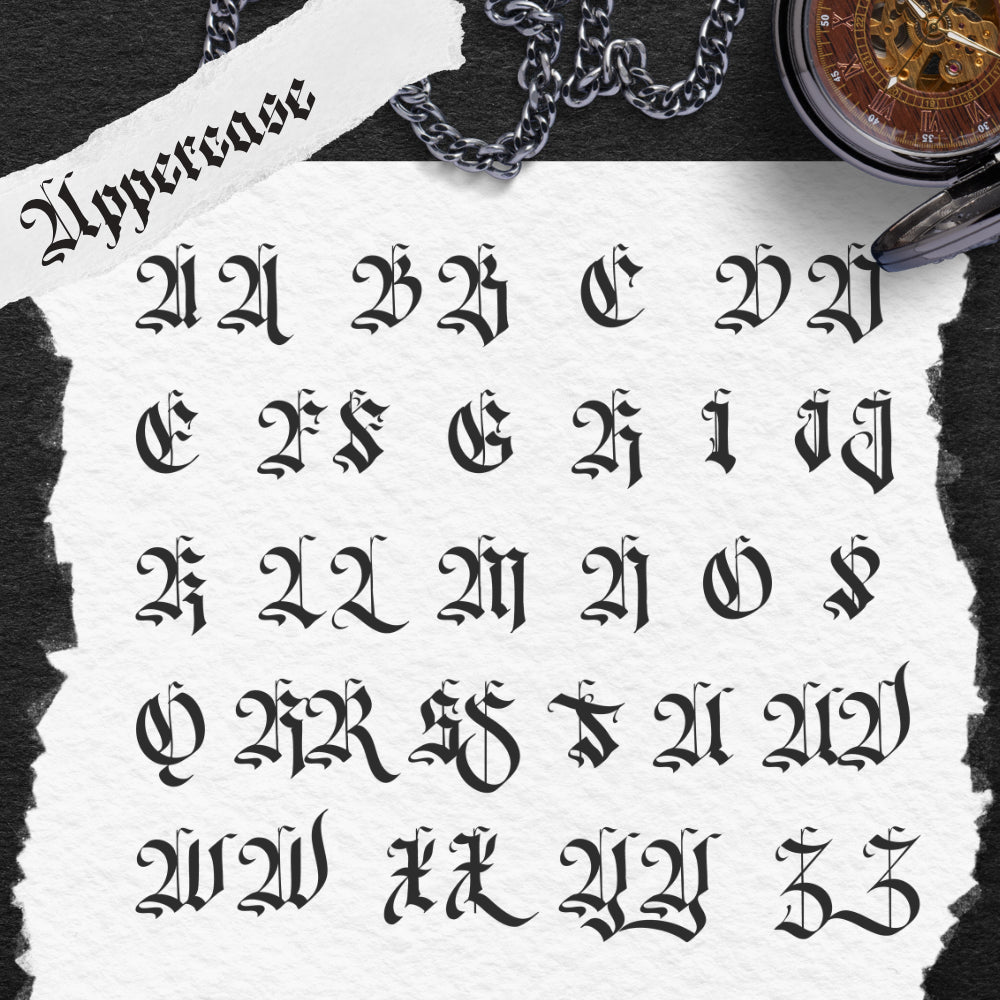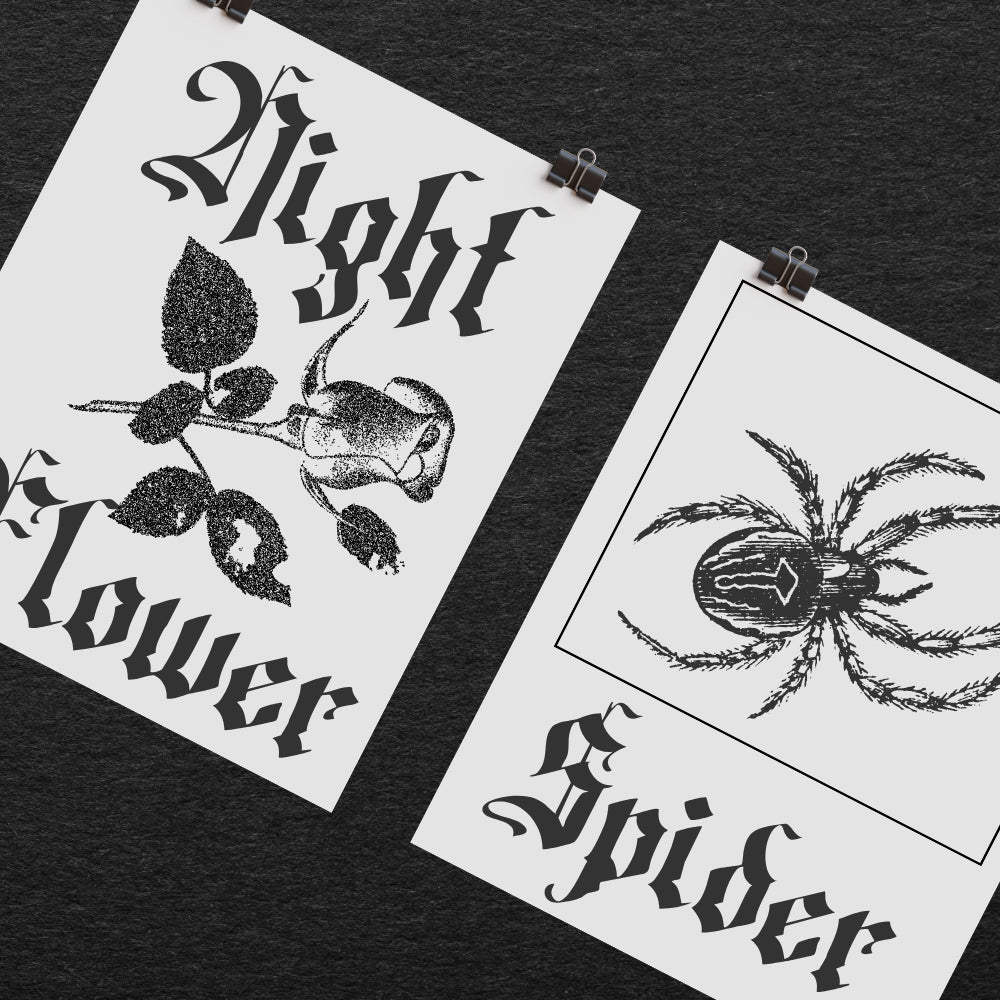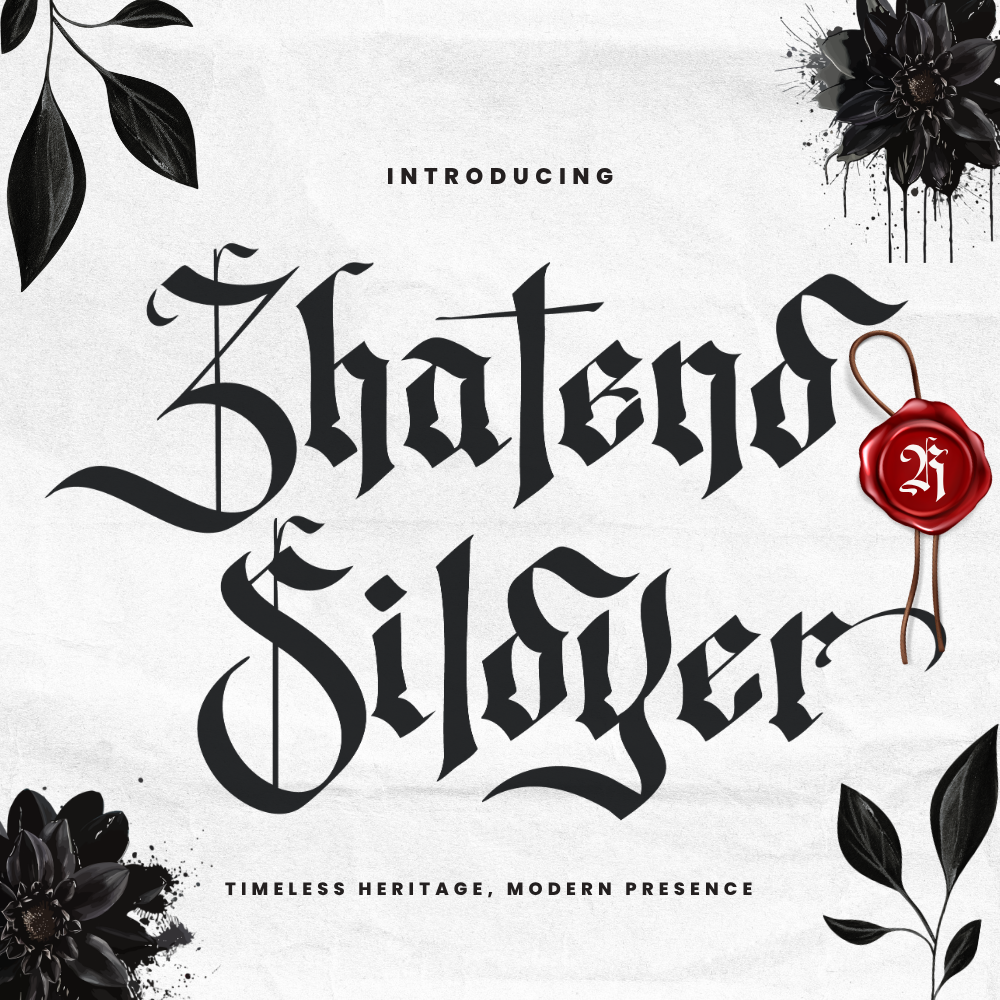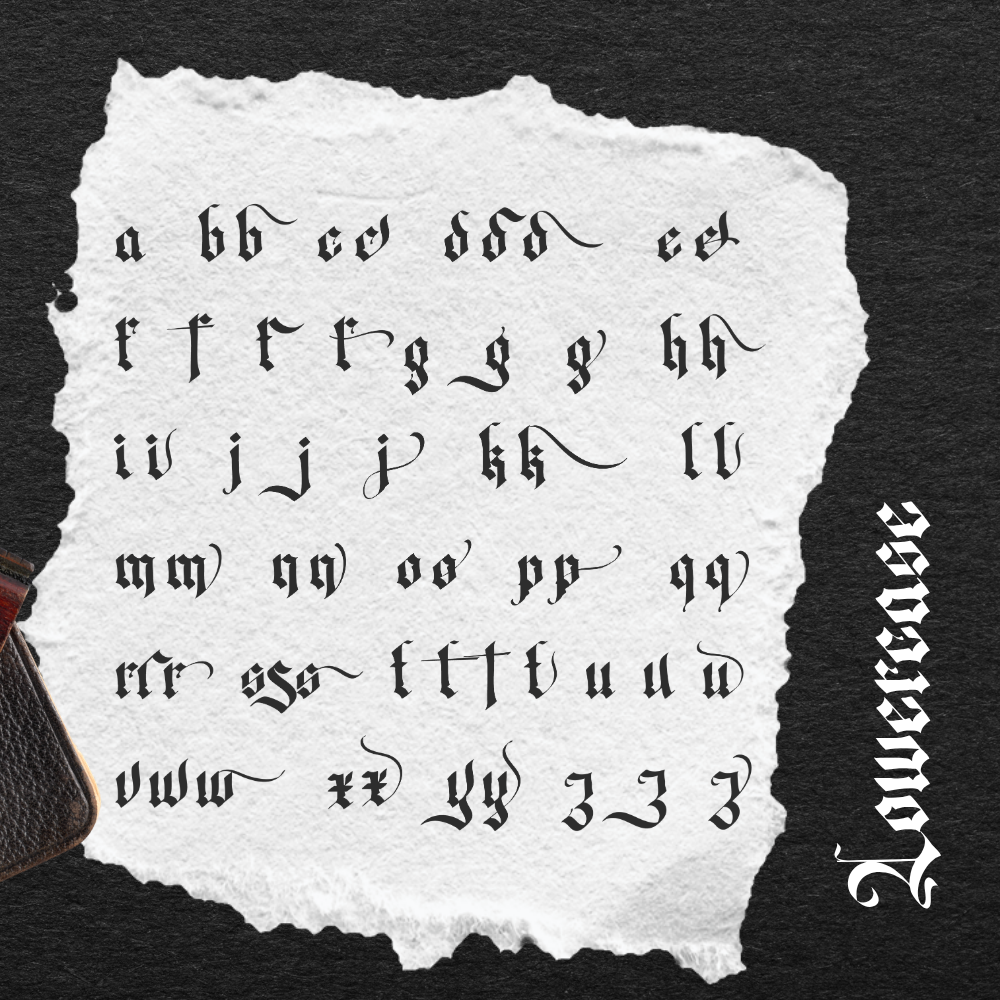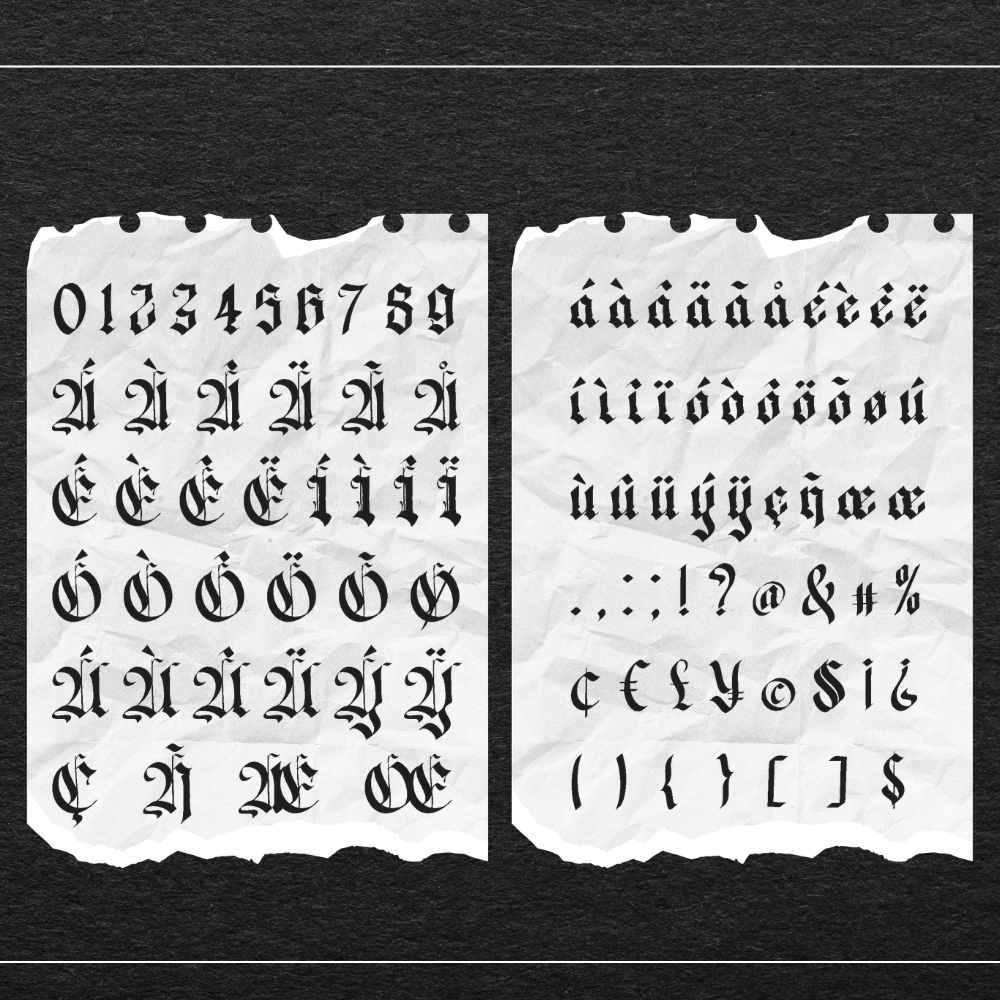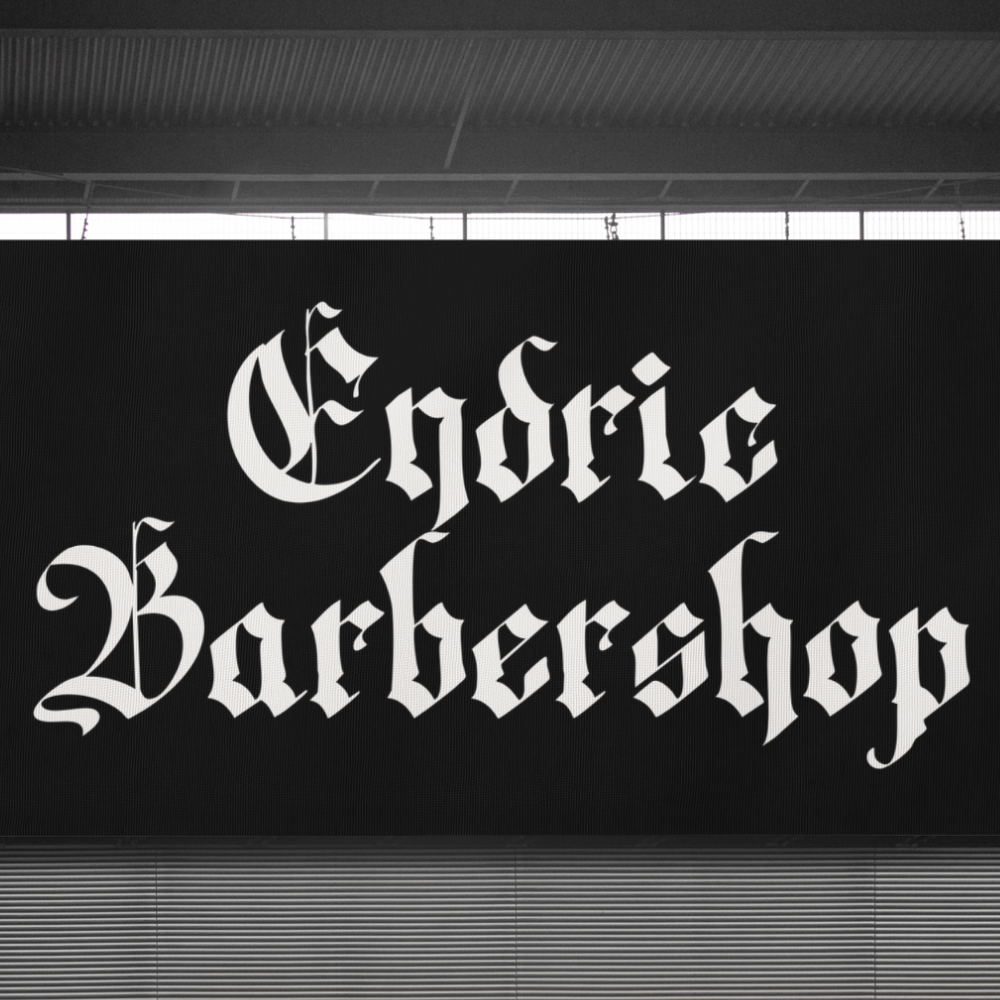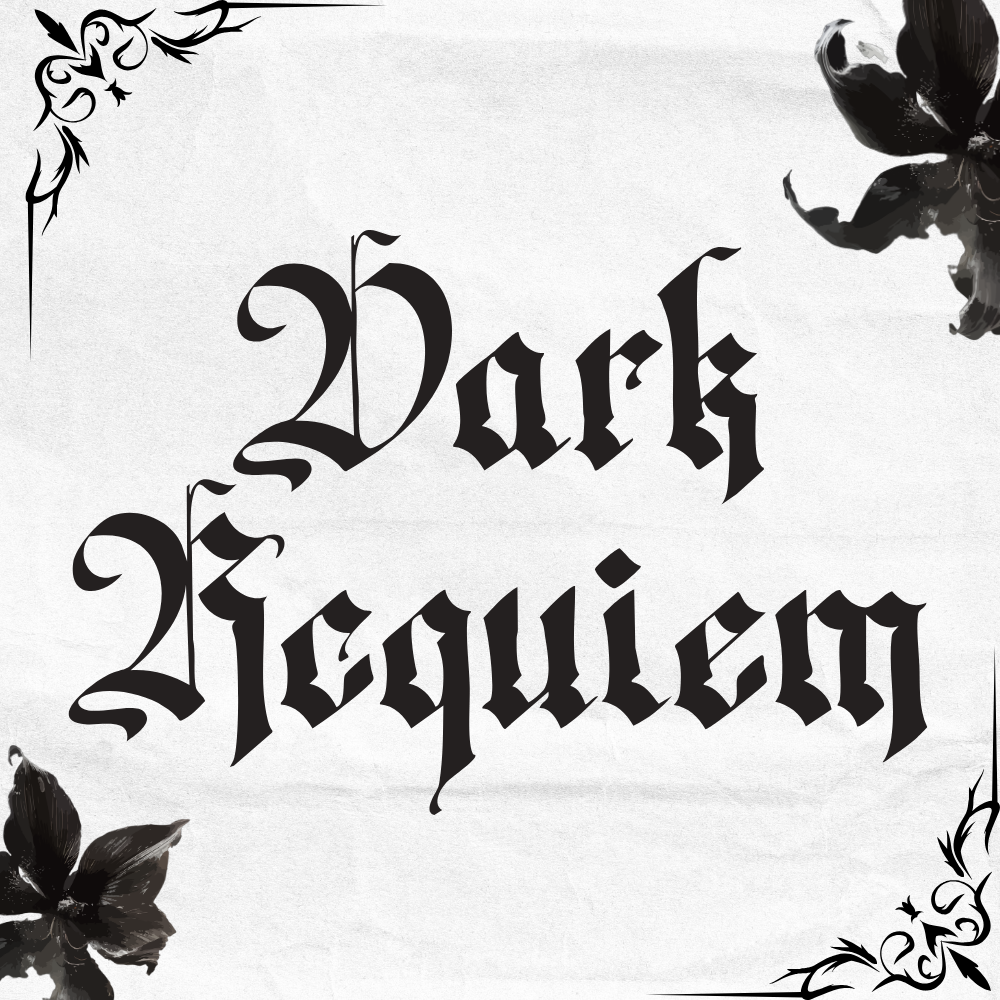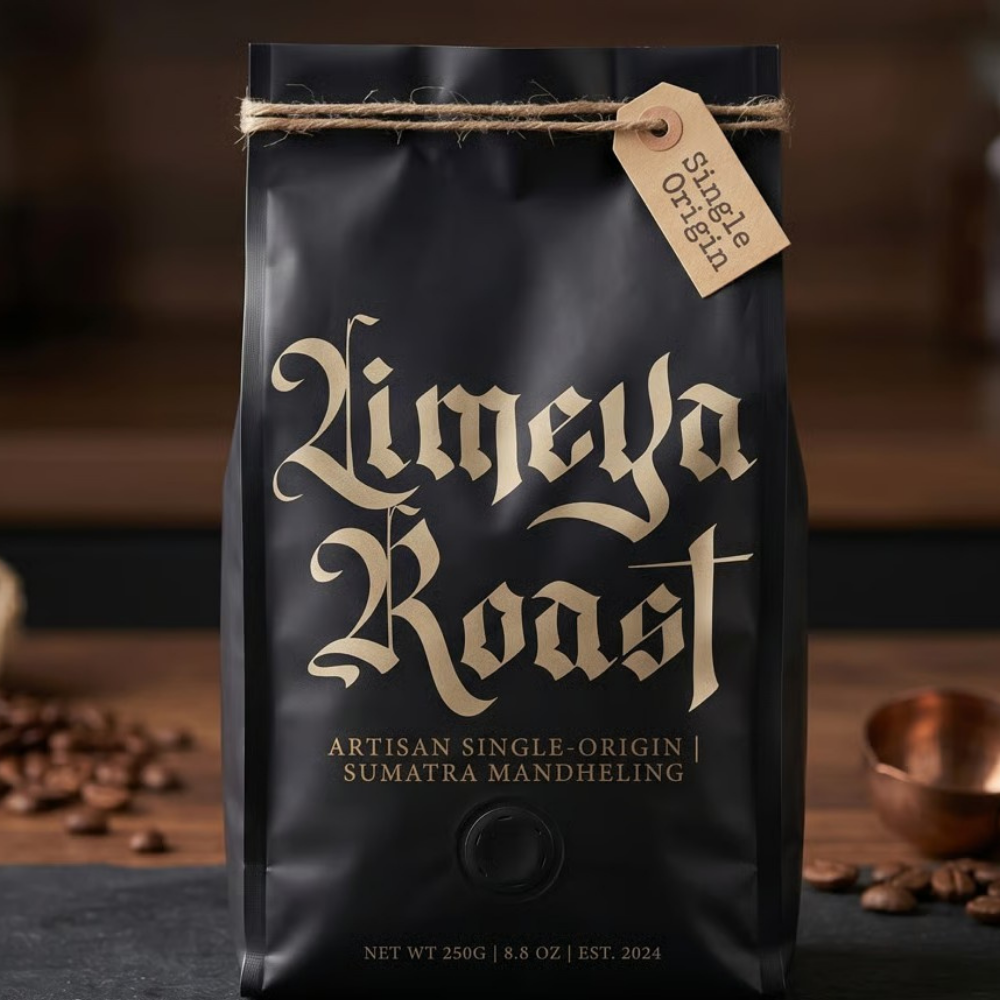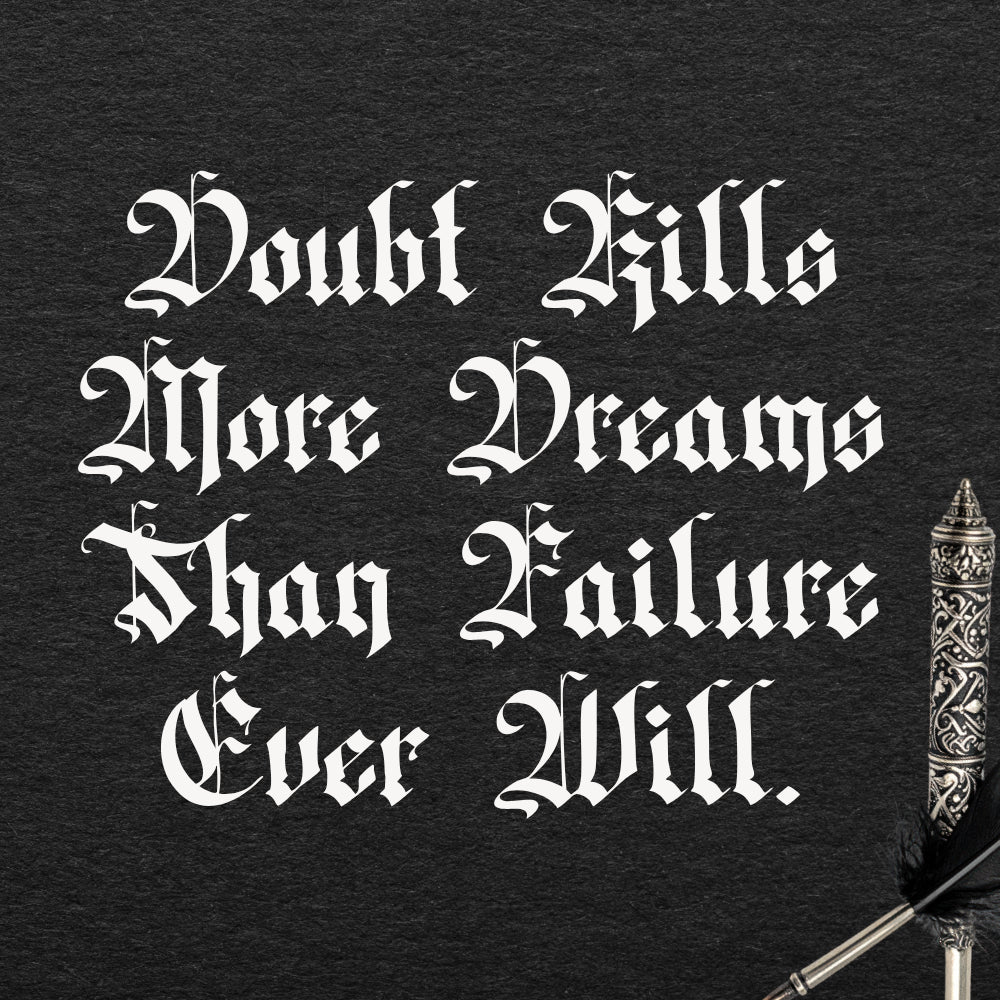
Zhatend Sildyer – Blackletter Font
Introducing Zhatend Sildyer, a striking blackletter and gothic font that seamlessly blends the heritage of classic calligraphy with modern readability.
Crafted with sharp, meticulous pen-stroke details and elegant decorative curves, this font is designed to deliver a strong, bold, and highly premium aesthetic to your creative projects. Zhatend Sildyer is the perfect choice for adding a vintage, edgy, or exclusive handmade touch to your digital and print designs.
Key Features Included:
• Uppercase & Lowercase Characters: A majestic set of uppercase letters and dynamic, highly readable lowercase characters.
• Stylistic Alternates & Swashes: Beautiful decorative modifications (especially on lowercase letters) featuring elegant curved tails to help you create unique, custom typography.
• Complete Numerals & Punctuation: Fully supports both formal and creative text layouts.
• Multilingual Support: Comprehensive language support covering accented characters and various global currency symbols.
Zhatend Sildyer is a blackletter and gothic font featuring uppercase and lowercase characters, stylistic alternates and swashes, complete numerals and punctuation, and multilingual support with accented characters and currency symbols. It is available in OTF, TTF, and WOFF file formats.